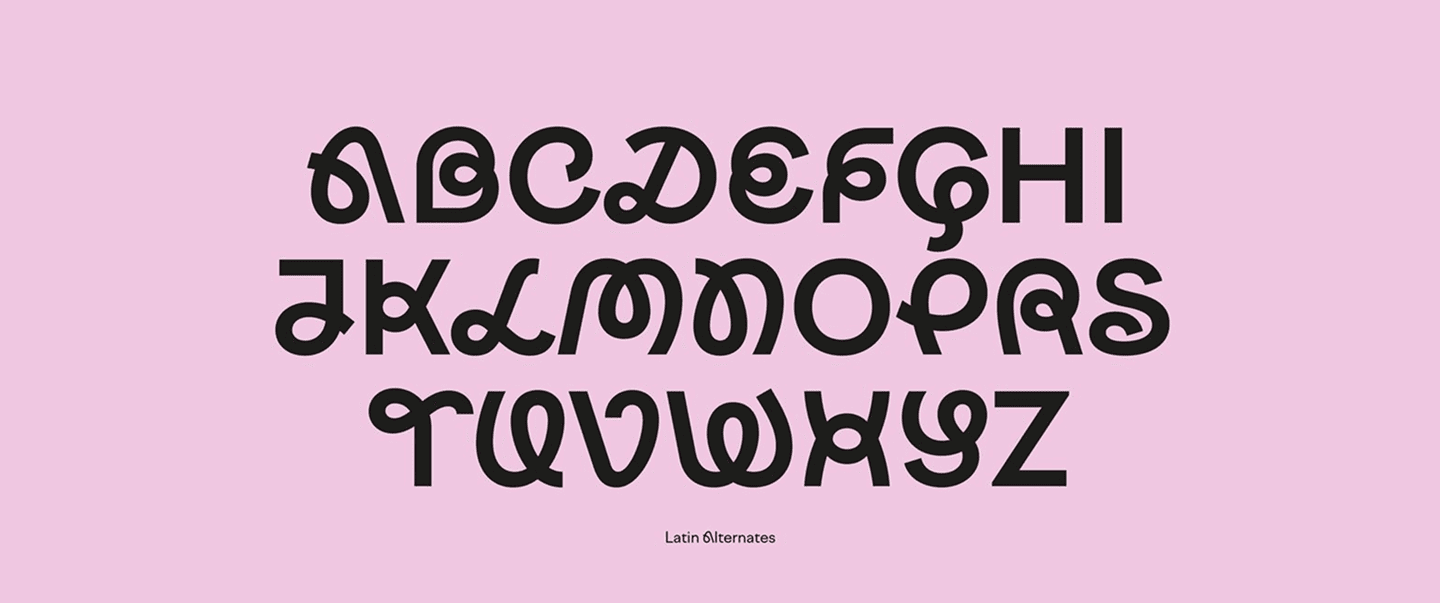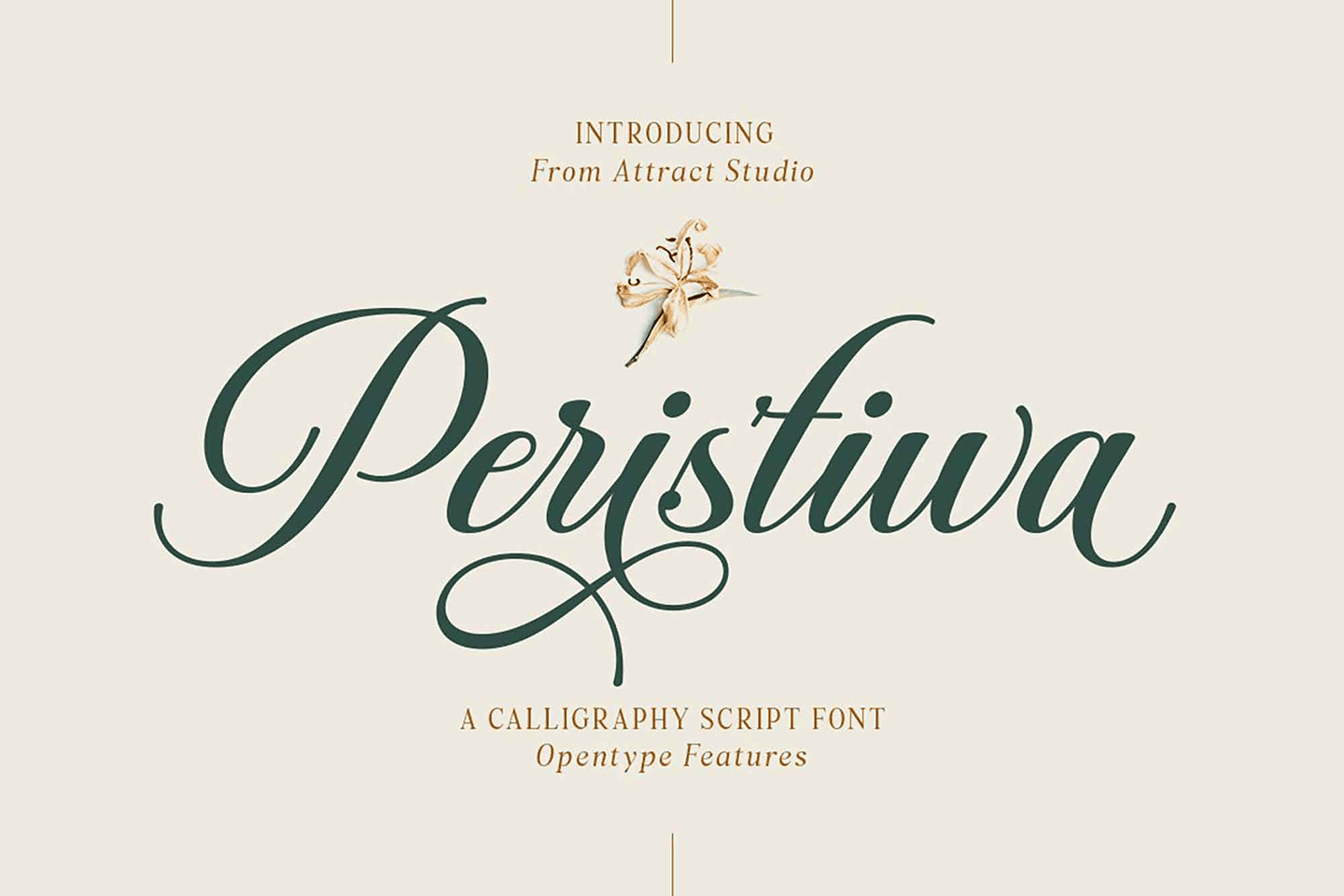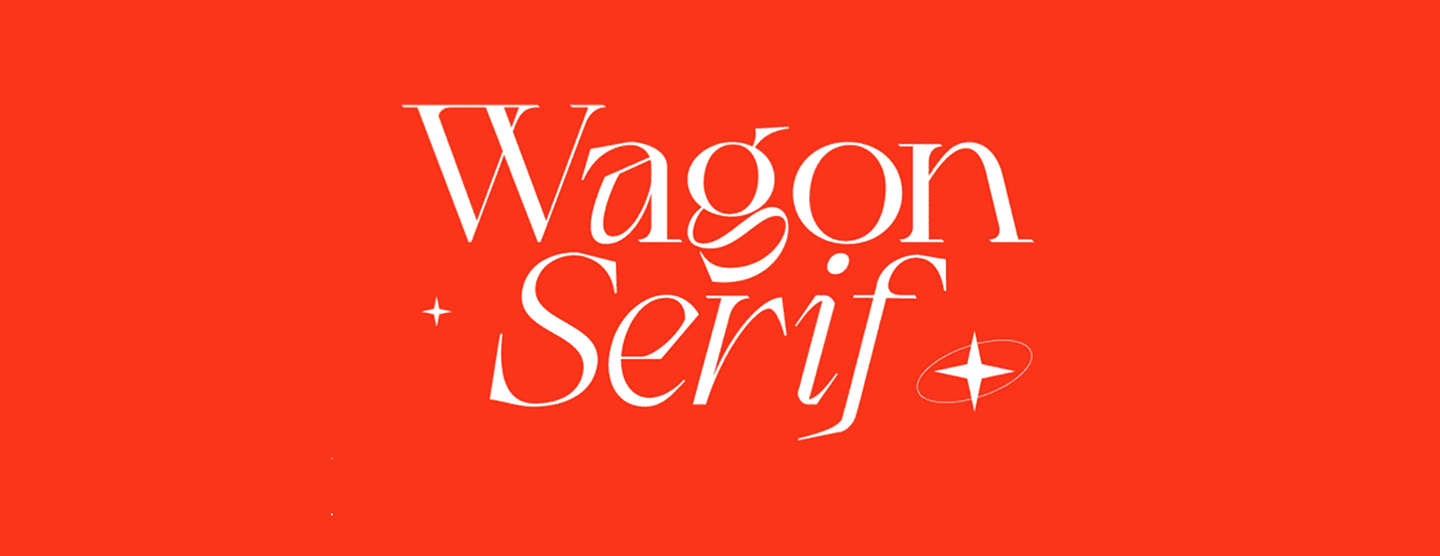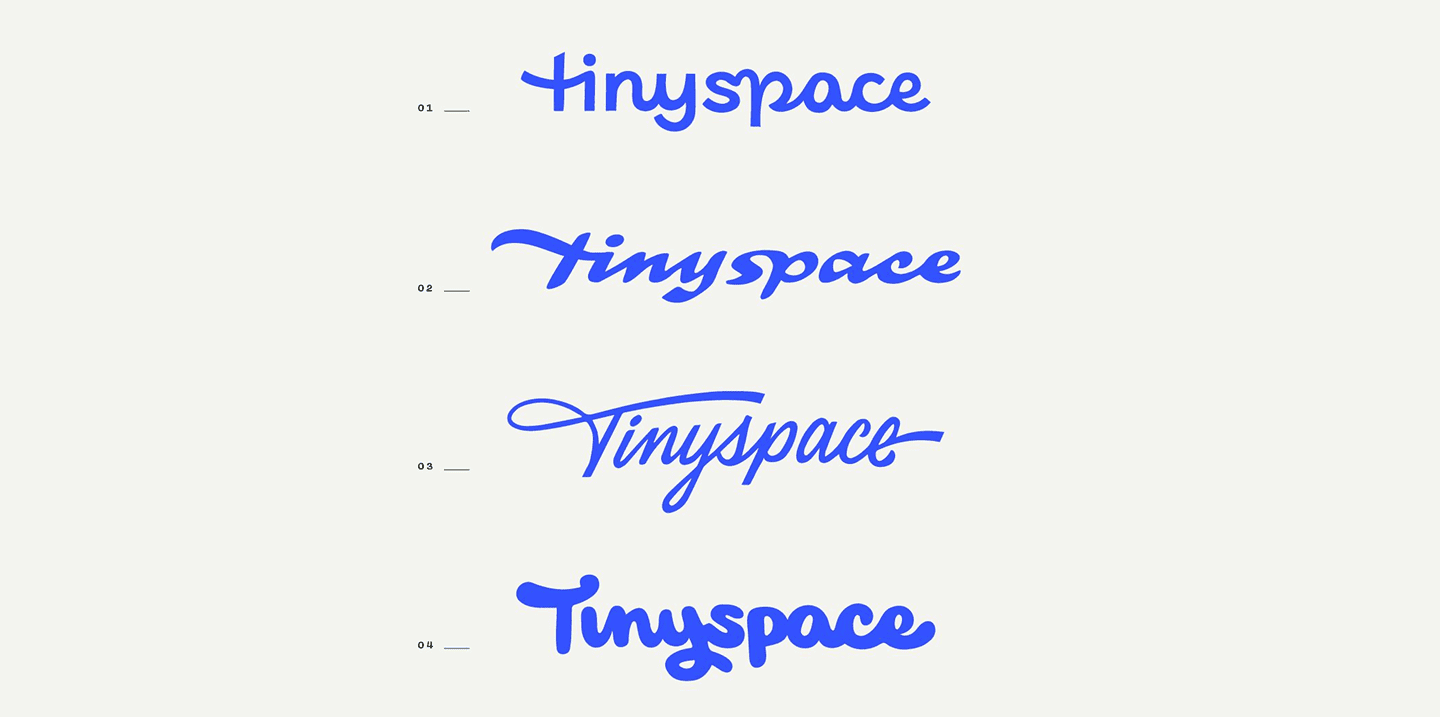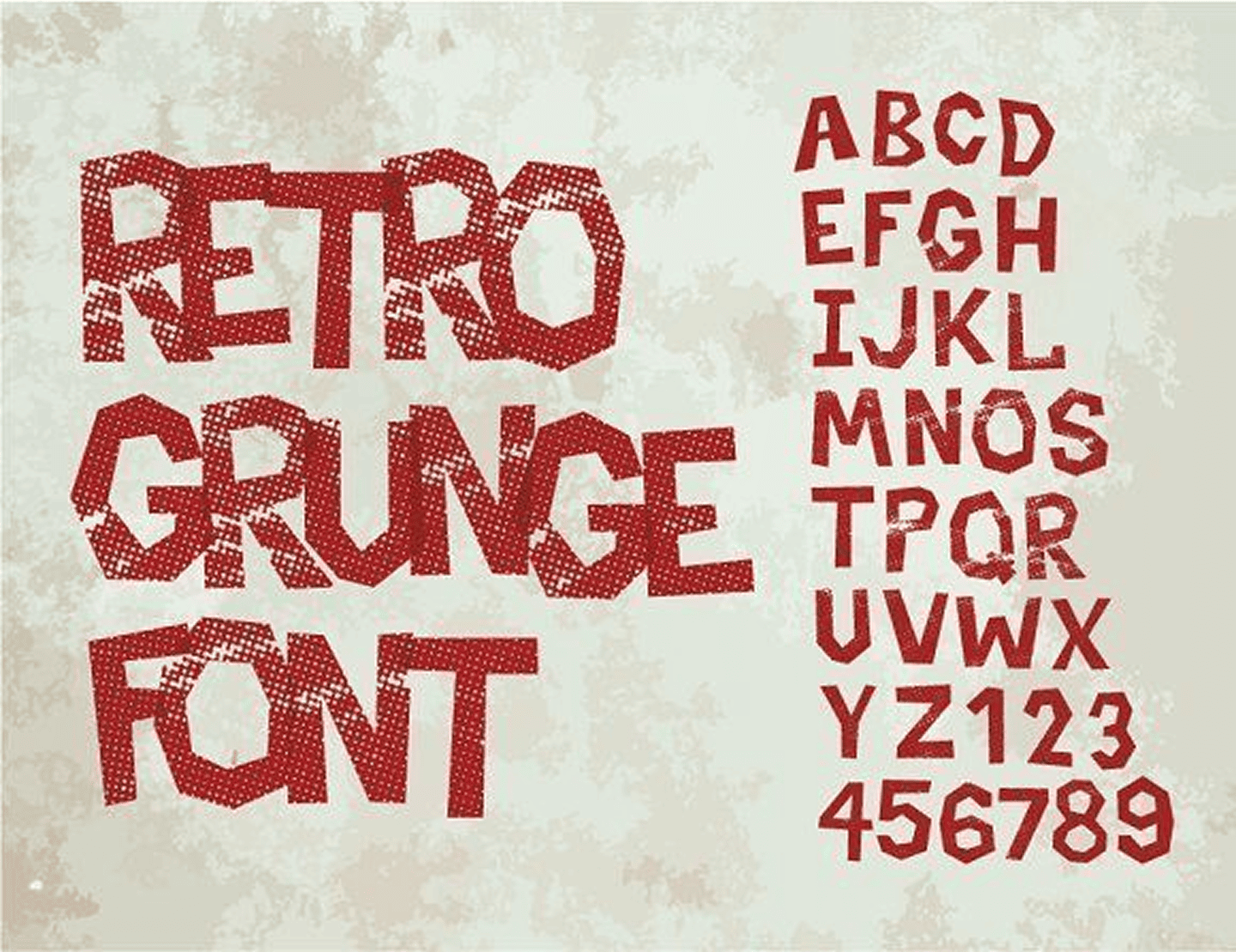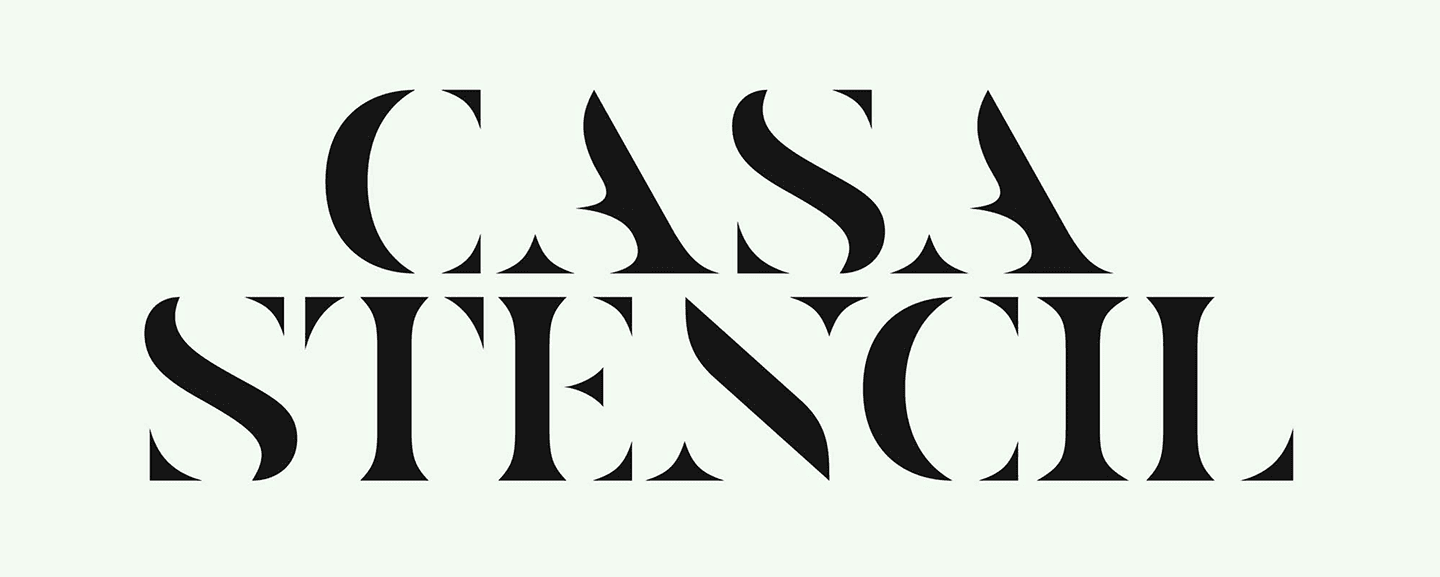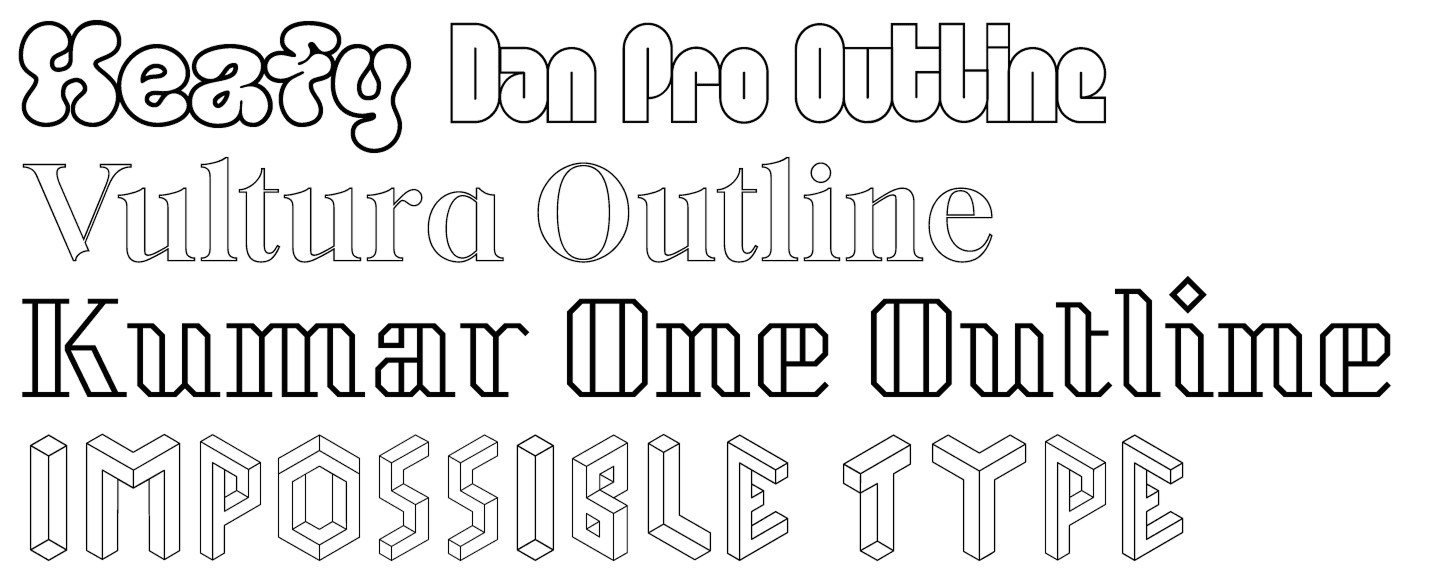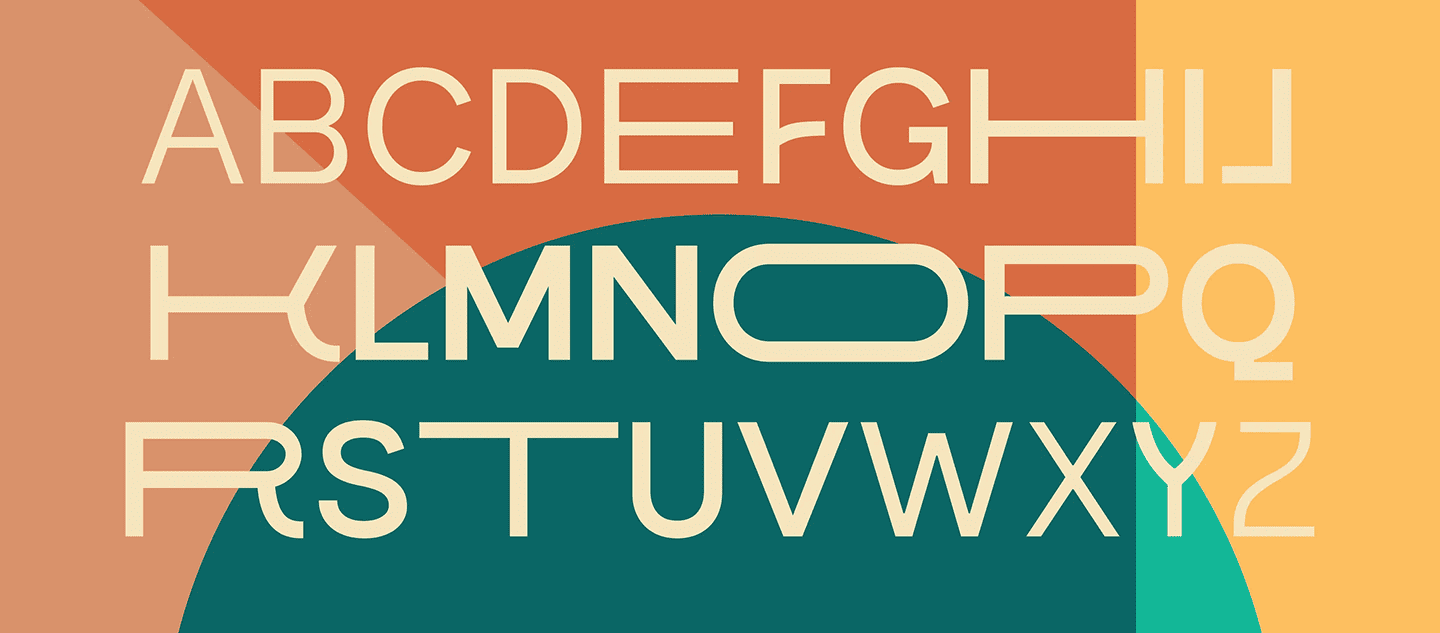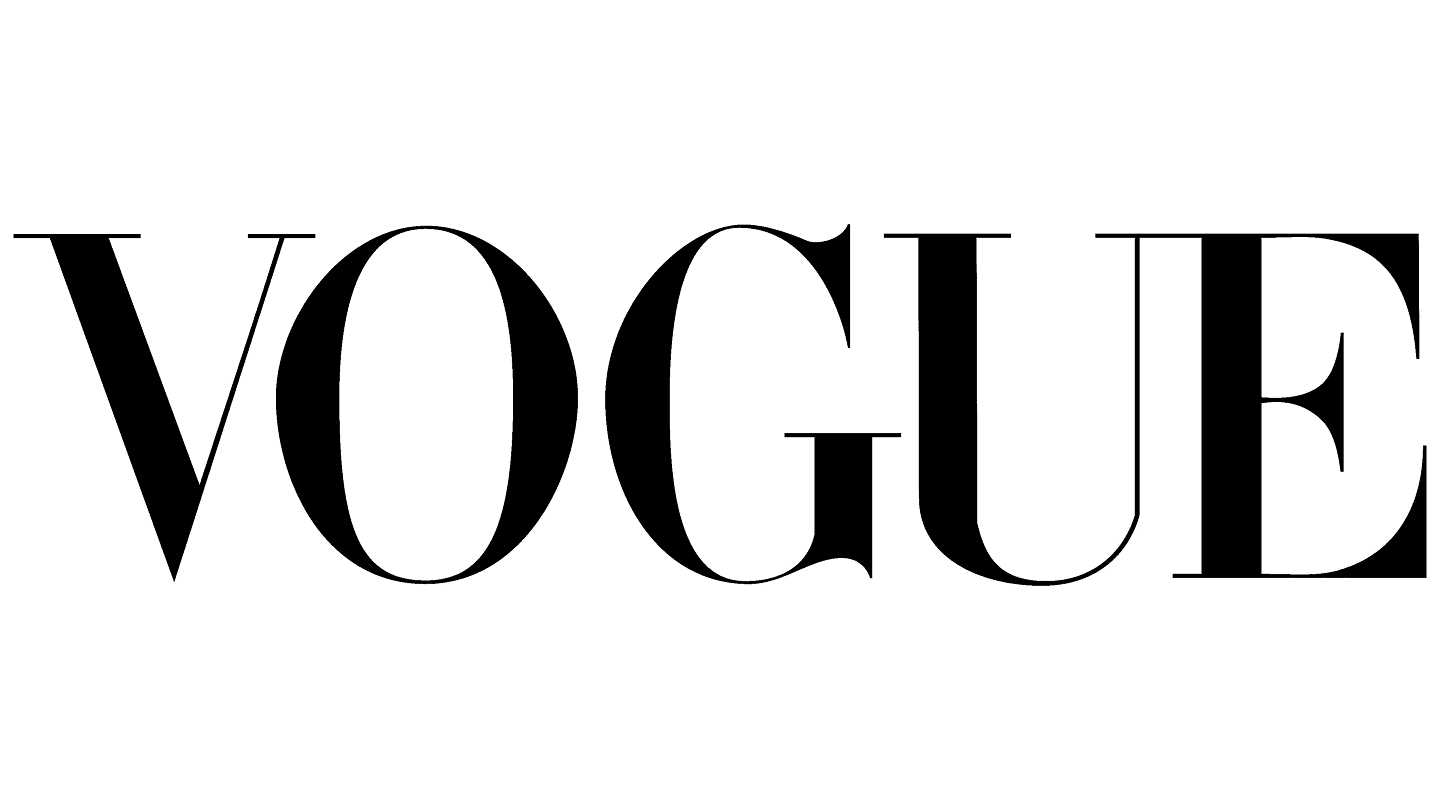
Types of Typefaces – A Guide in 2025
Typefaces, a name that is not so popular but plays an important role in your business communication. When it comes to design, typefaces are referred to as the unsung heroes. They are the ones who quietly shape how people perceive your brand, products, and communication. Whether it’s a luxury brand using a sleek serif or a tech company opting for a modern sans-serif, the types of typefaces you choose say more about your brand than you might think.
If you’ve ever wondered, “Why does one font feel more premium while another feels fun and friendly?” You’re not alone. This blog is here to break down the different typefaces, their purposes, and how to choose the right one for your business.
What Is a Typeface
Before deep diving into the blog, let’s understand the definition. A typeface is a set of letters, numbers, and symbols that share a consistent design. Typefaces which are popular like Times New Roman, Helvetica and Comic Sans are few of the examples of typefaces. Within each typeface, you’ll find fonts (like bold, italic, etc.), which are specific styles or weights of that typeface.
In short, typeface is the design family, whereas a font is the style/variation within that family.
Why Typeface Matters in Business
Apart from conveying information, fonts do more than just that. They set the tone for your brand voice, impact readability, and even influence consumer trust. Here’s why typefaces should matter to you as a business:
• First Impressions: A sophisticated serif may impress high-end clientele. A quirky display font may resonate with younger audiences.
• Brand Recognition: Your font becomes part of your visual identity like Coca-Cola’s script or Google’s geometric sans-serif.
• User Experience: Clean, readable typefaces improve navigation, boost engagement, and support conversions (especially in digital products and packaging).
Therefore, it is a strategic move if you are choosing the typefaces to convey your brand messaging.
20 Main Types of Typefaces (With Examples)
Understanding the different types of typefaces helps businesses choose fonts that align with their brand tone and purpose. Here’s a breakdown of 20 key typeface categories used across design, branding, and marketing.
1. Old Style Serif
What they are: Serif fonts with curved, diagonal strokes inspired by classical calligraphy.
Common fonts: Garamond, Palatino, Goudy Old Style
Personality: Timeless, traditional, warm
Use Case: Publishing, law firms, academic institutions
Why businesses use them: They feel reliable and sophisticated, perfect for brands that want to establish long-standing trust.
2. Transitional Serif
What they are: The bridge between old-style and modern serif fonts, with sharper contrast and cleaner forms.
Common fonts: Times New Roman, Baskerville
Personality: Elegant, balanced, professional
Use Case: Editorial websites, newspapers, professional services
Why businesses use them: They’re a safe middle ground-formal but approachable, ideal for brands with both tradition and a modern edge.
3. Modern Serif (Didone)
What they are: They are characterized by their vertical stress, minuscule hairlines, and high contrast serif fonts.
Common fonts: Bodoni, Didot
Personality: Stylish, high-end, dramatic
Use Case: Fashion magazines, luxury products, beauty brands
Why businesses use them: They make brands feel premium and visually striking often used to communicate elegance and status.
4. Slab Serif
What they are: Fonts with serifs that are thick and blocky.
Common fonts: Rockwell, Clarendon, Museo Slab
Personality: Bold, impactful, solid
Use Case: Posters, headlines, retail packaging
Why businesses use them: They demand attention and are highly legible perfect for brands that want to be loud and confident.
5. Grotesque Sans Serif
What they are: Early sans-serif fonts with slightly awkward but character-rich shapes.
Common fonts: Franklin Gothic, Akzidenz-Grotesk
Personality: Gritty, functional, industrial
Use Case: Print ads, traditional media, institutional design
Why businesses use them: They carry a vintage-modern look that feels authentic and grounded.
6. Neo-Grotesque Sans Serif
What they are: Clean, modern sans-serif fonts with minimal personality and high legibility.
Common fonts: Helvetica, Arial, Univers
Personality: Neutral, professional, structured
Use Case: Corporate websites, tech products, business reports
Why businesses use them: They don’t distract they just deliver. Ideal for professional, data-heavy, or tech-driven brands.
7. Humanist Sans Serif
What they are: Sans-serif fonts with calligraphic influence, offering a more organic feel.
Common fonts: Gill Sans, Calibri, Myriad
Personality: Friendly, approachable, soft
Use Case: Service businesses, wellness brands, lifestyle content
Why businesses use them: They blend readability with warmth good for brands that want to feel personal but polished.
8. Geometric Sans Serif
What they are: Fonts built from precise geometric shapes like circles and squares.
Common fonts: Futura, Montserrat, Avenir
Personality: Clean, modern, futuristic
Use Case: Startups, product landing pages, minimalist branding
Why businesses use them: They give off a sharp, innovative vibe, great for modern tech companies or creative agencies.
9. Script
What they are: Fonts that are meant to seem like official handwriting in cursive.
Common fonts: Pacifico, Great Vibes, Allura
Personality: Elegant, romantic, creative
Use Case: Logos, invitations, boutique brands
Why businesses use them: They add flair and emotion, making your message feel more human and artistic.
10. Handwritten
What they are: Casual, often imperfect fonts that resemble natural handwriting.
Common fonts: Amatic SC, Indie Flower, Architects Daughter
Personality: Personal, quirky, relaxed
Use Case: Kids’ products, cafés, blogs
Why businesses use them: They make your brand feel unique and authentic great for storytelling and niche audiences.
11. Calligraphic
What they are: Stylized fonts inspired by brush or pen calligraphy.
Common fonts: Zapfino, Lucida Calligraphy
Personality: Artistic, luxurious, flowing
Use Case: Event branding, jewelry, premium packaging
Why businesses use them: They add a handcrafted, refined feel often used for prestige and detail-oriented brands.
12. Blackletter (Gothic)
What they are: Medieval-inspired fonts with dense, sharp, ornamental strokes.
Common fonts: Old English Text MT, Fraktur
Personality: Historic, authoritative, traditional
Use Case: Beer labels, certificates, niche brands
Why businesses use them: They signal heritage or rebellion depending on how they’re used.
13. Display
What they are: Fonts are made for headlines and attention, not for body copy.
Common fonts: Impact, Bebas Neue, Cooper Black
Personality: Bold, expressive, loud
Use Case: Posters, magazine titles, branding
Why businesses use them: They stand out instantly a great choice when you want your message to hit hard.
14. Decorative / Novelty
What they are: Highly styled fonts meant to fit a specific theme or mood.
Common fonts: Jokerman, Curlz MT, Lobster
Personality: Fun, unusual, niche
Use Case: Party invites, theme products, kids’ items
Why businesses use them: They’re visually memorable but best used sparingly.
15. Monospaced
What they are: Fonts where every character takes up equal horizontal space.
Common fonts: Courier, Consolas, Source Code Pro
Personality: Technical, retro, minimalist
Use Case: Coding tools, tech brands, typewriter aesthetics
Why businesses use them: They enhance clarity in structured formats and add a clean, no-frills appearance.
16. Grunge/Distressed
What they are: Fonts with rough edges and weathered textures.
Common fonts: TrashHand, Capture It, Bleeding Cowboys
Personality: Edgy, raw, rebellious
Use Case: Music, streetwear, alternative brands
Why businesses use them: They break the mold and are perfect for brands with attitude and grit.
17. Stencil
What they are: Fonts designed to look like cut-outs, often mimicking spray paint stencils.
Common fonts: Stencil Std, Army Rust, Gunplay
Personality: Industrial, tough, military-like
Use Case: Tactical brands, labels, packaging
Why businesses use them: They project strength, clarity, and directness suitable for products needing a rugged tone.
18. Outline
What they are: Fonts that show only the outer edges of letterforms.
Common fonts: Bungee Outline, Neon Tubes
Personality: Futuristic, experimental, digital
Use Case: Fashion, tech branding, digital art
Why businesses use them: They offer a stylized contrast, especially powerful when paired with bold, solid fonts.
19. Pixel/Bitmap
What they are: Fonts made of visible squares, or “pixels,” mimicking early digital screens.
Common fonts: Press Start 2P, Minecraftia
Personality: Retro, digital, niche
Use Case: Gaming, NFTs, tech nostalgia
Why businesses use them: They trigger memory and emotion great for gaming and Gen Z-focused brands.
20. Variable Fonts
What they are: One font file that has the ability to dynamically change its width, weight, or style.
Common fonts: Inter, Roboto Flex, IBM Plex
Personality: Adaptive, versatile, modern
Use Case: Responsive web design, UI/UX, branding systems
Why businesses use them: They’re efficient and scalable, ideal for brands that want consistency across devices and formats.
Each of these typeface categories has a personality. You might favor modern or transitional serifs if your firm practices law. If you’re launching a trendy e-commerce brand, geometric sans-serif or slab serif may feel just right. And if you’re running a quirky café or kids’ product line, a decorative or handwritten typeface might be your sweet spot.
Choosing the Right Typeface for Your Brand
Now that you understand the different typeface categories, how do you choose the one that fits your business?
Here’s a simple checklist:
FactorQuestions to Ask
Brand PersonalityAre you formal or friendly? Modern or traditional?
Target AudienceAre your customers young, professional, luxury buyers, or casual users?
Medium of UseWill this be used on websites, print ads, packaging, or all of them?
ReadabilityIs the typeface easy to read on different screen sizes or in print?
DifferentiationDoes it stand out from competitors or look too generic?
For example, a SaaS brand might go for a geometric sans-serif (like Montserrat) for a modern, tech-driven look, while a craft chocolate company might choose a script or serif to add warmth and artistry.
How Typeface Affects Branding: Real-World Examples
• Netflix for legibility on screens and a contemporary look, Netflix utilizes a proprietary sans-serif called Netflix Sans.
• Vogue sticks with a timeless serif to maintain its luxurious, editorial image.
• Mailchimp blends a bold display font with quirky design elements to show off their fun brand voice.
The typeface is the tone. And the right tone builds trust.
Can You Mix Typeface Styles?
Yes but with caution. Primary and secondary typeface are provided by many businesses to provide contrast:
• Sans-serif for the body and slab serif for the headline
• Logo in a script, tagline in a sans-serif
Keeping visual harmony and proportion is the key. Overmixing fonts might appear cluttered or unprofessional.
How can we help you Convey Your Brand Message?
Typography goes beyond aesthetics as it’s a strategic asset for shaping brand identity. From serifs that build trust to sans-serifs that scream innovation, understanding the types of typefaces gives your brand a stronger visual identity.